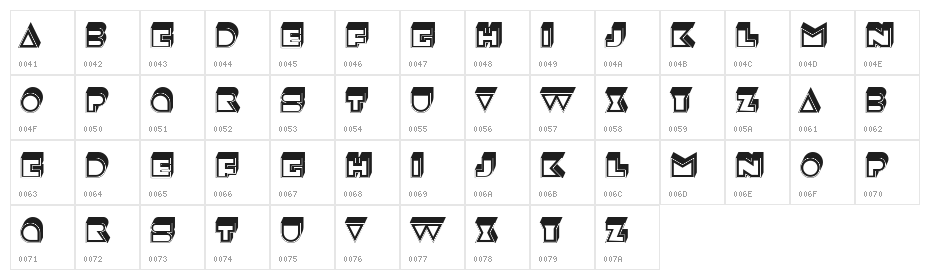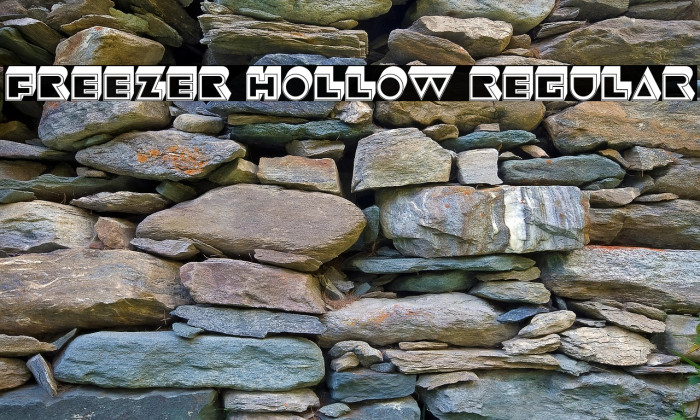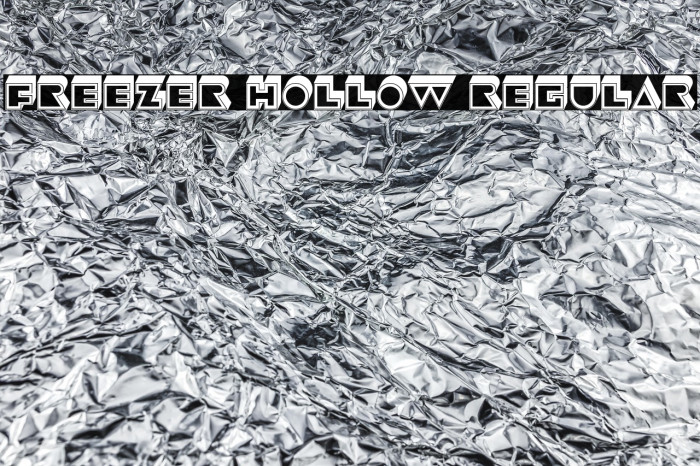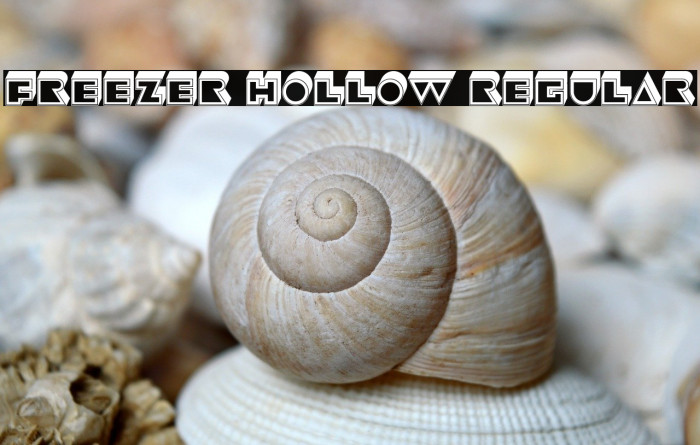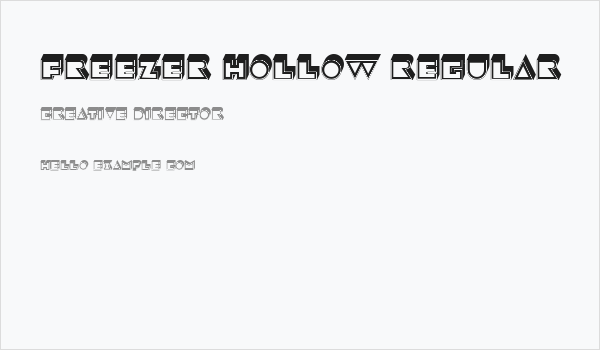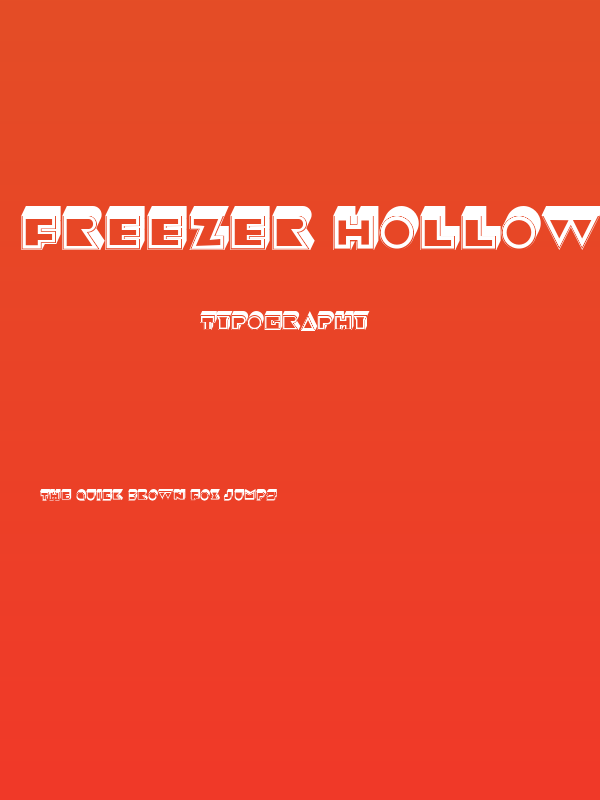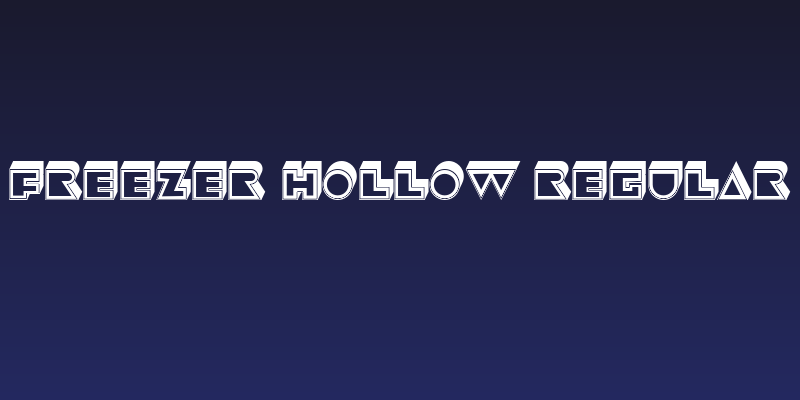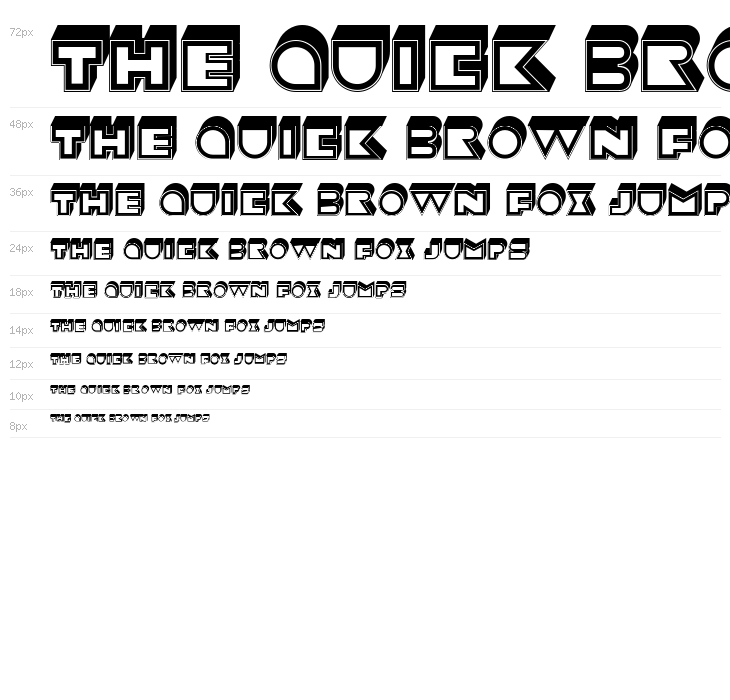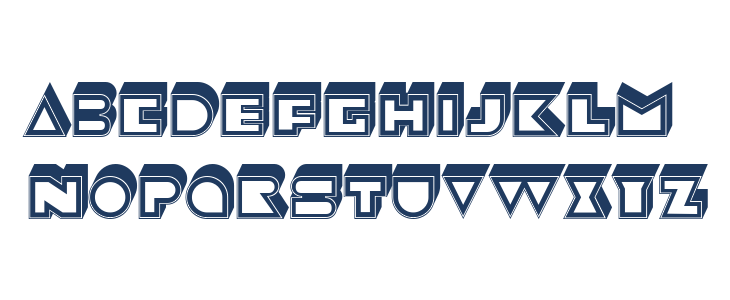
Freezer Hollow Regular Font
Freezer Hollow Regular Description
This font features a bold, geometric design with a hollow interior, creating a striking visual effect. The characters are constructed with sharp angles and clean lines, giving them a futuristic and edgy appearance. The uppercase letters are particularly prominent, with a three-dimensional look that adds depth and intrigue. The font's unique style makes it ideal for attention-grabbing headlines and creative projects where a modern, bold statement is desired.
| Proposed Projects | Ideal for posters, album covers, video game titles, and branding that requires a modern, edgy look. |